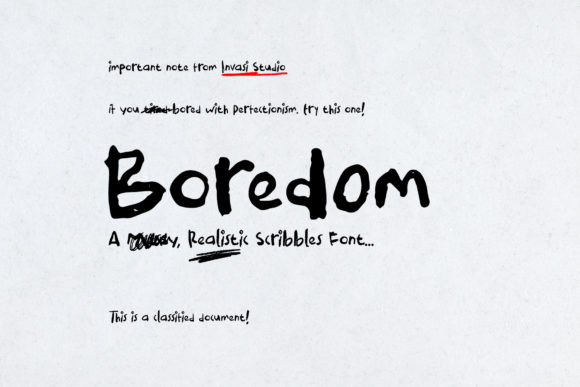
**Boredom Font: A Journey into the Quirky and Unique**
In the vast realm of fonts, where uniformity often prevails, Boredom Font emerges as a breath of fresh air, a font that defies the ordinary and invites you to explore the extraordinary. Prepare to be captivated by its unmistakable quirks and undeniable charm, as it beckons you to embark on a typographic adventure like no other.
**Unleash Your Inner Artist**
With Boredom Font at your fingertips, creativity knows no bounds. Its playful and distinctive characters dance across the page, bringing life and personality to your designs. Whether you're a seasoned graphic artist or just starting your creative journey, Boredom Font provides the perfect canvas to express your unique vision.
**Make a Statement with Every Word**
In a world saturated with monotony, Boredom Font empowers you to make a statement that resonates. Its bold and unconventional design demands attention, ensuring your message cuts through the noise and leaves an indelible mark on your audience. Whether you're crafting eye-catching headlines, captivating posters, or unforgettable branding, Boredom Font guarantees that your words will command attention and leave a lasting impression.
**A Font with Endless Possibilities**
The beauty of Boredom Font lies in its versatility. It seamlessly adapts to a myriad of design aesthetics, effortlessly complementing everything from playful illustrations to sophisticated layouts. Its unique character set, featuring a captivating blend of sharp angles and whimsical curves, adds a touch of intrigue and delight to any project. Let Boredom Font be your creative partner, guiding you toward designs that captivate and inspire.
**Experience the Joy of Quirky Typography**
With Boredom Font, the mundane becomes extraordinary. Its playful and unpredictable nature injects a sense of lightheartedness into your designs, inviting viewers to engage with your content in a whole new way. Let Boredom Font be your secret weapon to create designs that spark joy, evoke smiles, and leave a lasting impression.
**Embrace the Quirks, Embrace Boredom**
Boredom Font is more than just a font; it's an invitation to embrace the unexpected and celebrate the beauty of imperfection. It challenges the status quo and encourages you to think outside the box, to push the boundaries of creativity and create designs that are truly unforgettable. Join the ranks of those who dare to be different, who embrace the quirks and revel in the unique. Let Boredom Font be your guiding light on this extraordinary typographic journey.